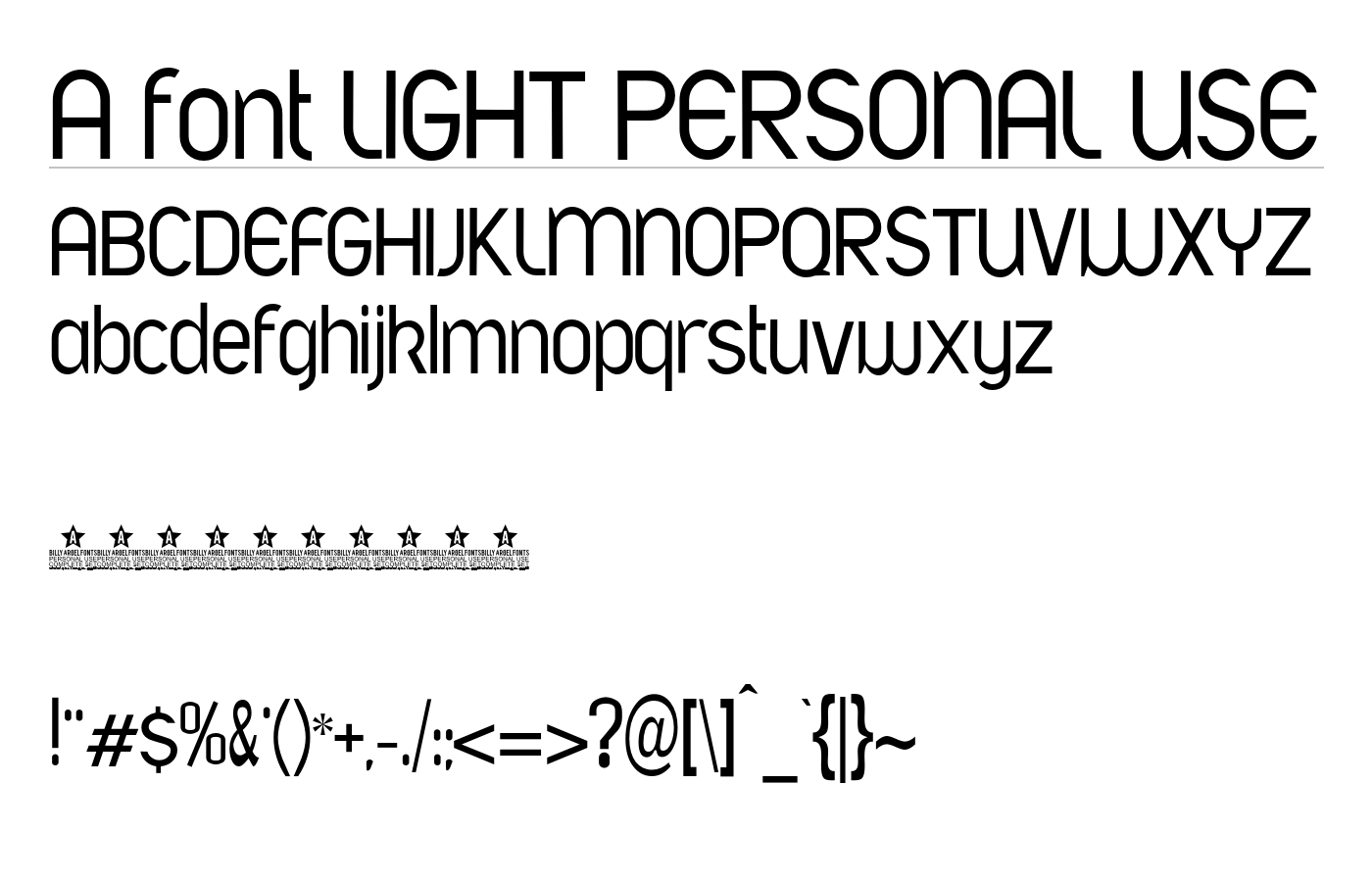
A font LIGHT PERSONAL USE is a sleek, modern sans-serif typeface with a narrow width and a light weight, offering a clean and minimalist appearance. Its tall x-height and geometric shapes create a contemporary feel, while unique letterforms like the curved tail of the Q and single-story g add subtle character. This font works well for stylish branding, headlines, and digital projects that seek a fresh, elegant, and slightly quirky atmosphere.
A font LIGHT PERSONAL USE Font
About A font LIGHT PERSONAL USE Font